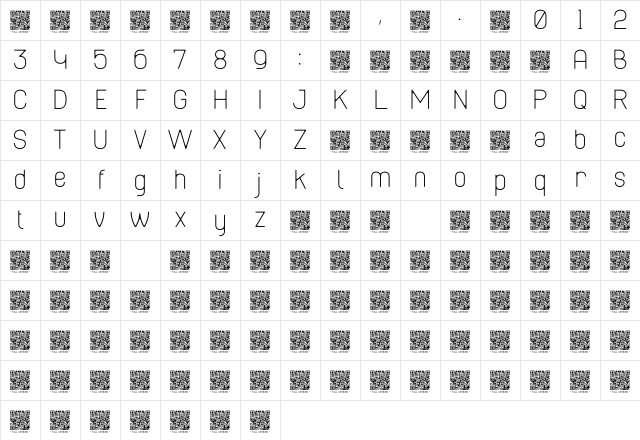
Complete Cabo Soft Thin Demo glyph index. Displaying only characters natively supported by Cabo Soft Thin Demo font.
Cabo Soft is a composed and adaptable typeface that performs quietly and consistently across a wide range of design contexts. Its slender proportions lend an understated elegance to any composition.